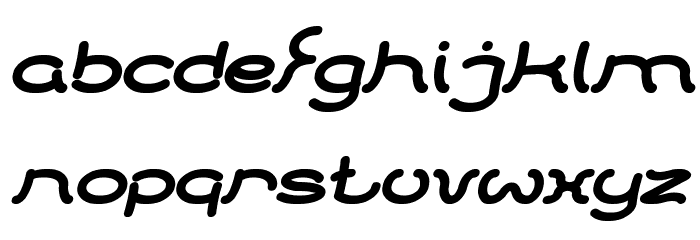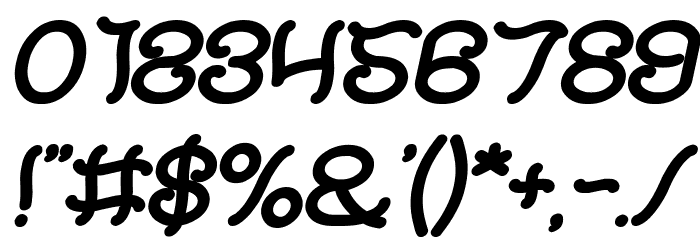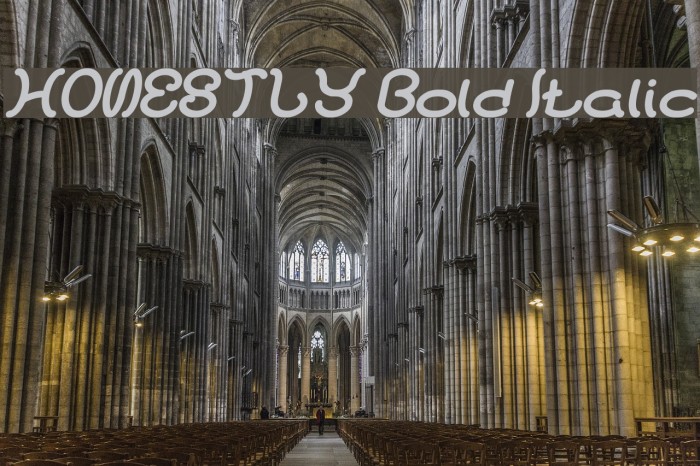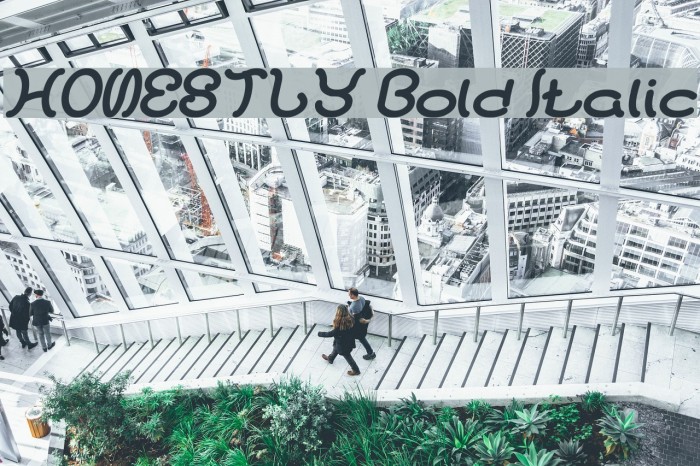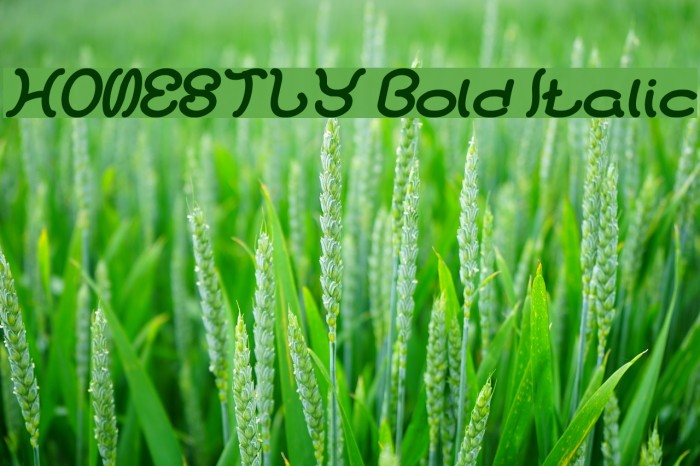
HONESTLY Bold Italic Font
This font features a bold and italic style with a playful, rounded appearance. The characters are connected with smooth, flowing lines, giving it a handwritten feel. The uppercase and lowercase letters maintain a consistent style, with the uppercase being slightly more pronounced. Numbers and special characters are designed to match the overall aesthetic, ensuring uniformity across all glyphs. The font's boldness and italic slant add a dynamic and energetic touch, making it stand out in various design contexts.
A bold, italic, and playful font with a handwritten feel.
- Proposed Projects: Ideal for creative projects such as posters, invitations, branding, and social media graphics where a lively and informal touch is desired.